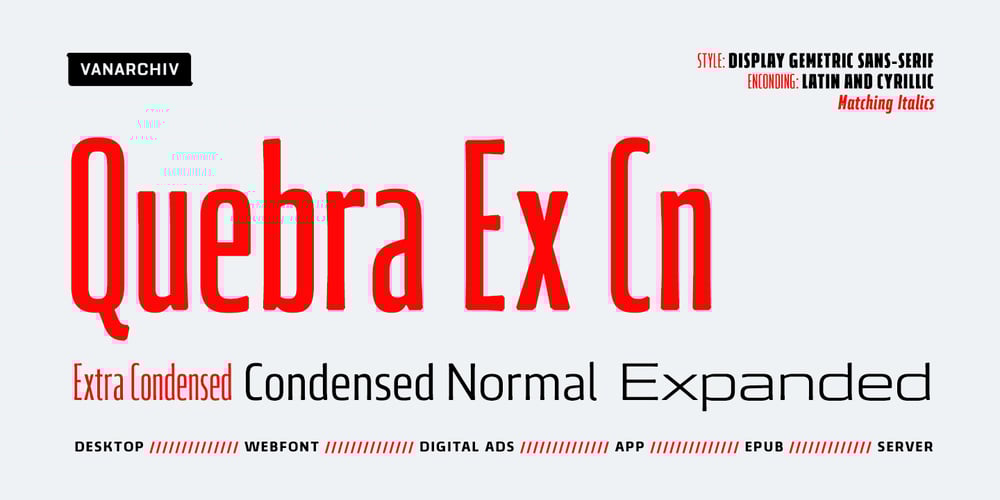
Quebra Ex Condensed
Quebra Ex Condensed font
Quebra Ex Condensed Font Family was designed by Ricardo Santos and published by Vanarchiv. Quebra Ex Condensed contains 20 styles and family package options. Quebra Ex Cn (Extra Condensed) is an extend display sans-serif font family, available with four widths (Extra Condensed, Normal and Expanded) and ten weights, italics versions are available. The main strokes contain small breaks simulating modulated variations on the letterforms, these details are more present on large body sizes. All font versions contain Latin and Cyrillic encoding characters and also ligatures, case-sensitive forms, fractions, oldstyle and finally tabular figures.